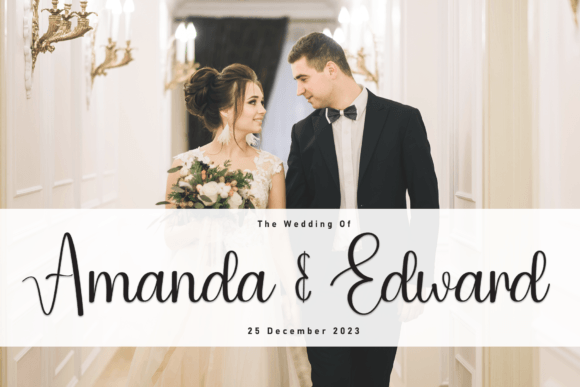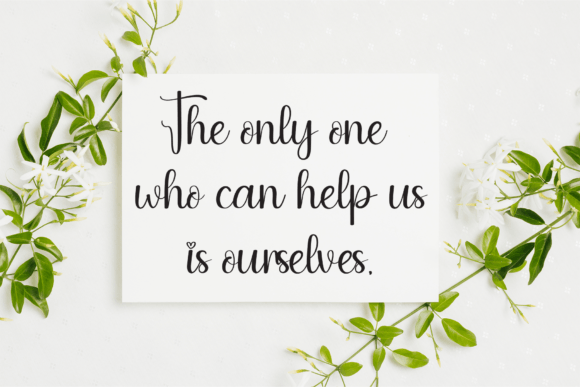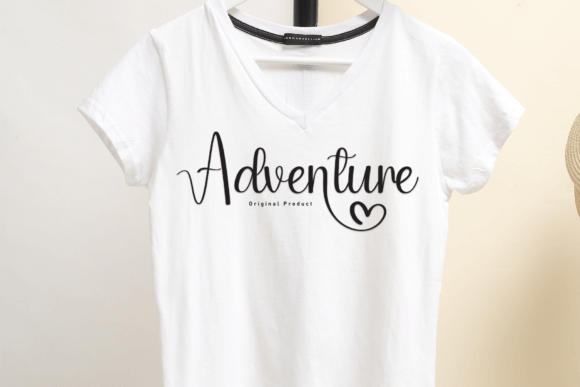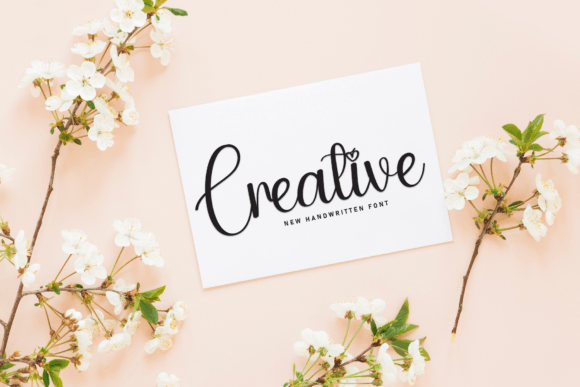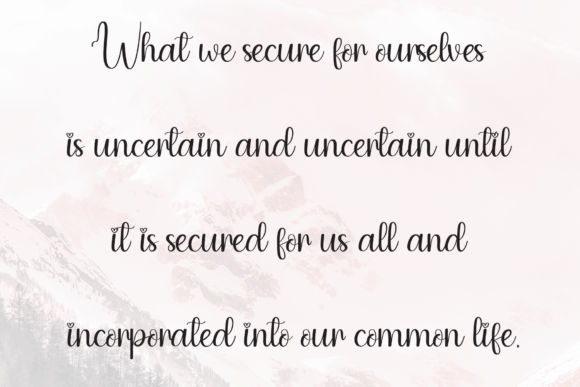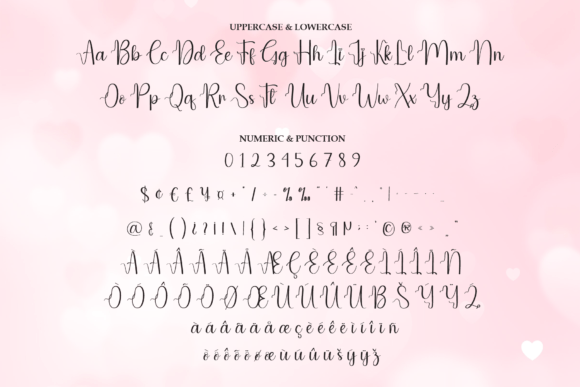
Introducing February Font: The Sweet and Friendly Handwritten Font for Your Design Needs
Are you looking for a font that can add a touch of warmth and personality to your designs? Look no further than February Font, a sweet and friendly handwritten font that’s perfect for creating beautiful wedding invitations, cards, and more. In this article, we’ll take a closer look at February Font, its features, and how you can use it to elevate your designs.
What is February Font?
February Font is a lovely handwritten font that’s designed to bring a touch of sweetness and friendliness to your designs. With its cute yet versatile style, this font is ideal for creating a wide range of designs, from wedding invitations and cards to social media graphics and more.
Key Features of February Font
- Handwritten style: February Font has a beautiful handwritten style that’s perfect for creating personal and heartfelt designs.
- Cute and versatile: This font is both cute and versatile, making it suitable for a wide range of design projects.
- Elegant and refined: Despite its playful style, February Font has an elegant and refined feel that’s perfect for creating sophisticated designs.
- Easy to read: This font is highly legible, making it easy to read and understand, even at small sizes.
Use Cases for February Font
February Font is a versatile font that can be used for a wide range of design projects, including:
- Wedding invitations: This font is perfect for creating beautiful and elegant wedding invitations that set the tone for a special day.
- Cards and stationery: February Font is ideal for creating lovely cards and stationery for special occasions, such as birthdays, anniversaries, and more.
- Social media graphics: This font can be used to create eye-catching social media graphics that add a personal touch to your online presence.
- Branding and packaging: February Font can be used to create beautiful branding and packaging designs that stand out from the crowd.
Tips for Using February Font
Here are some tips for using February Font in your designs:
- Pair with other fonts: February Font can be paired with other fonts to create a unique and interesting design.
- Experiment with colors: This font looks great in a variety of colors, so don’t be afraid to experiment and find the perfect hue for your design.
- Use for headings and body text: February Font can be used for both headings and body text, making it a versatile font for a wide range of design projects.
February Font is a sweet and friendly handwritten font that’s perfect for designers and crafters looking to add a touch of warmth and personality to their designs. With its cute yet versatile style, this font is ideal for creating a wide range of designs, from wedding invitations and cards to social media graphics and more. Whether you’re a seasoned designer or just starting out, February Font is a great addition to your font library.
So why not give February Font a try? With its ease of use and versatility, it’s the perfect font for anyone looking to create beautiful and eye-catching designs.